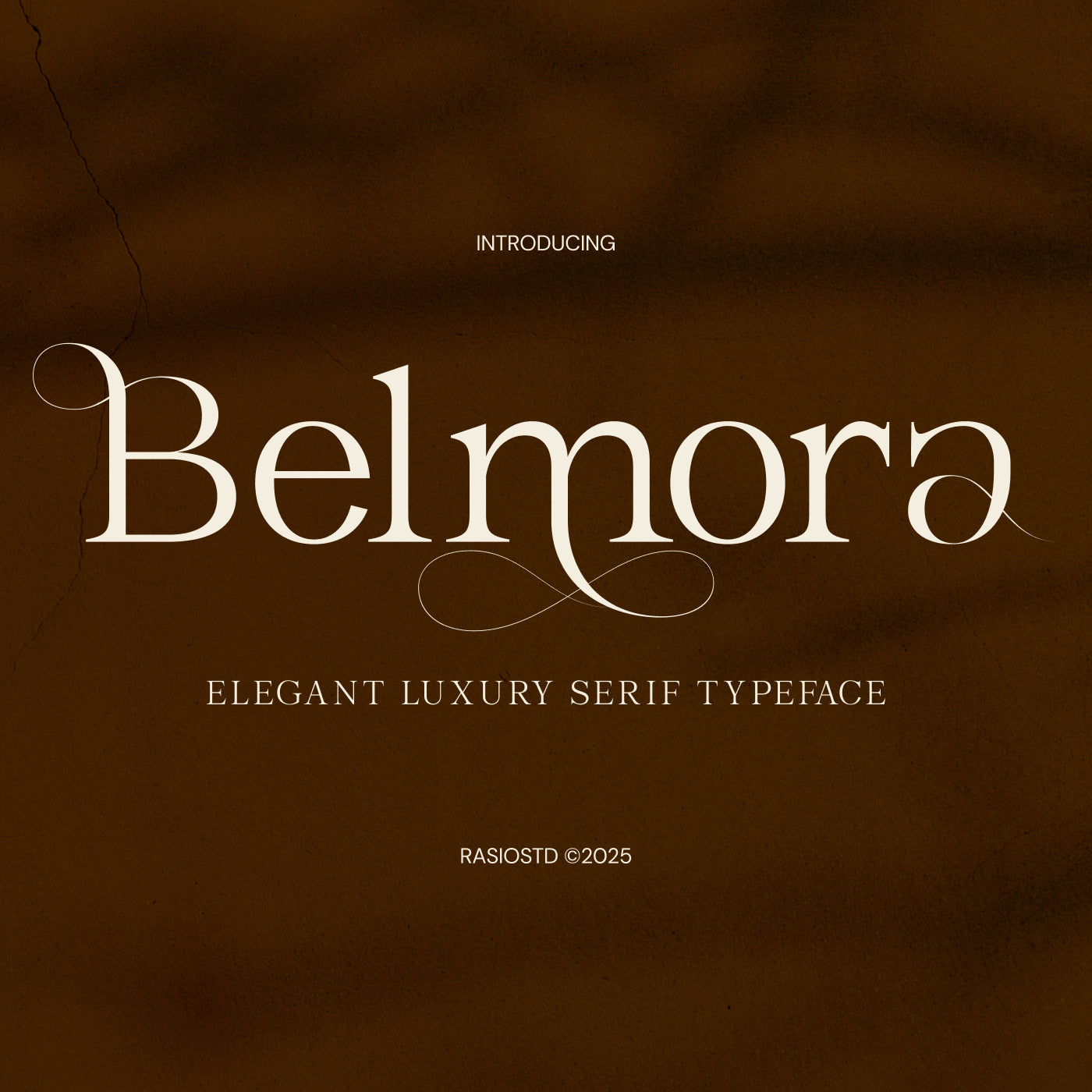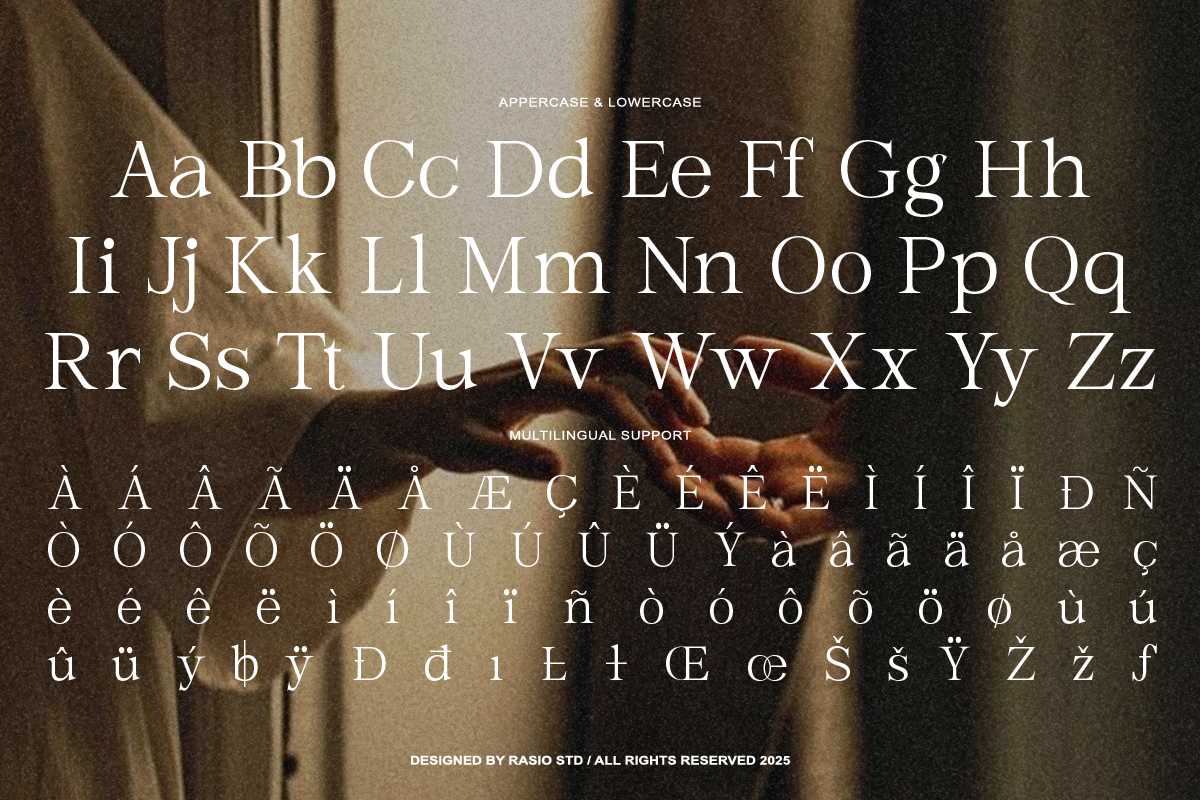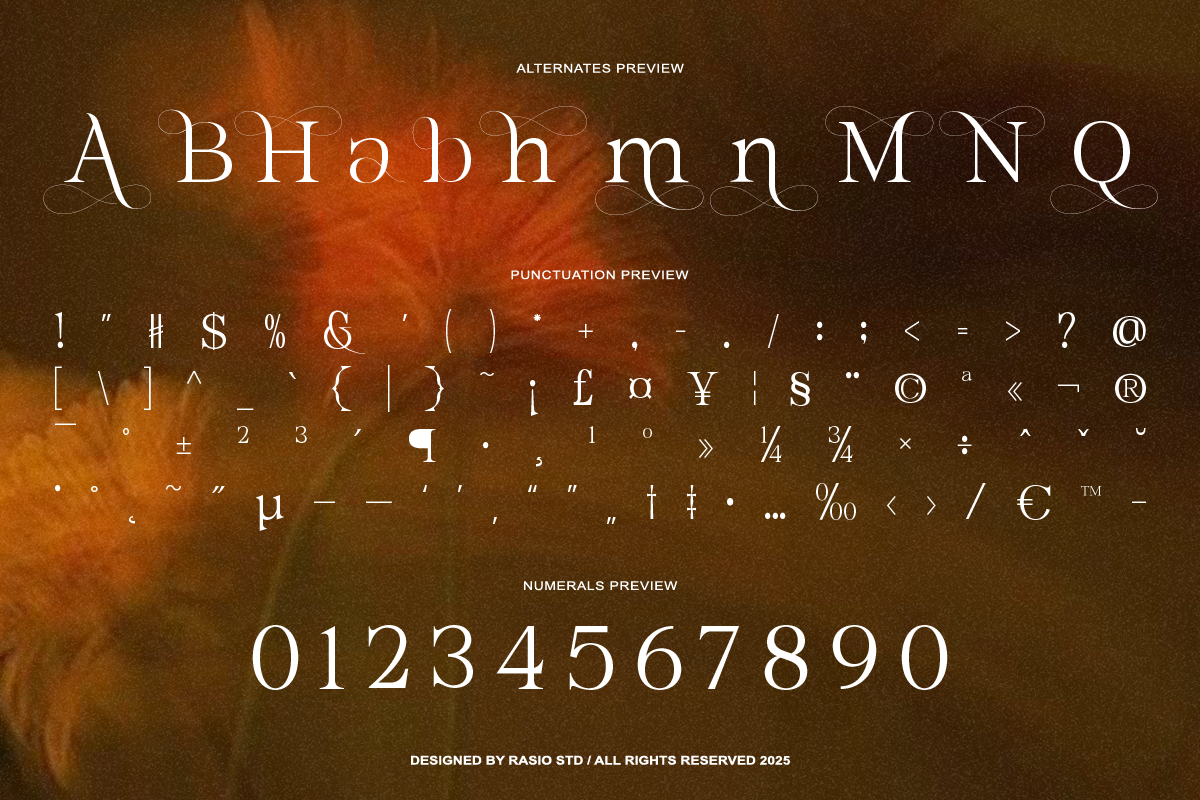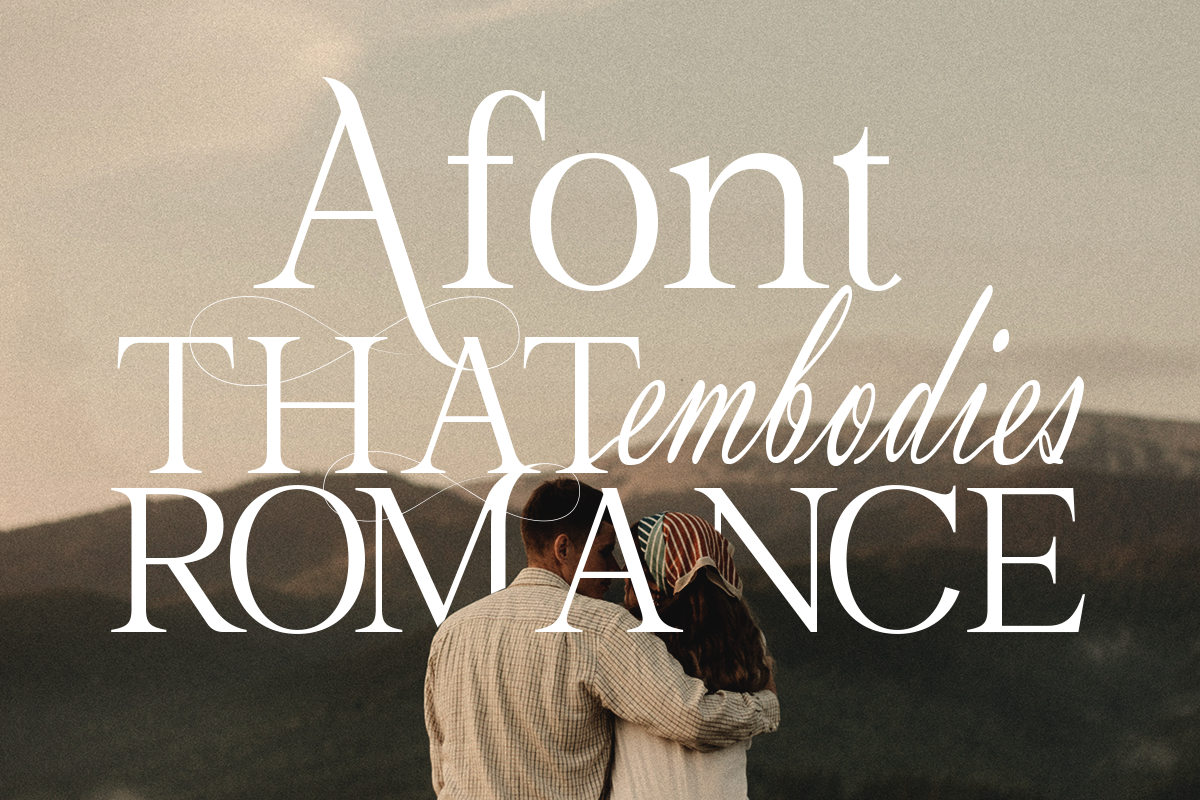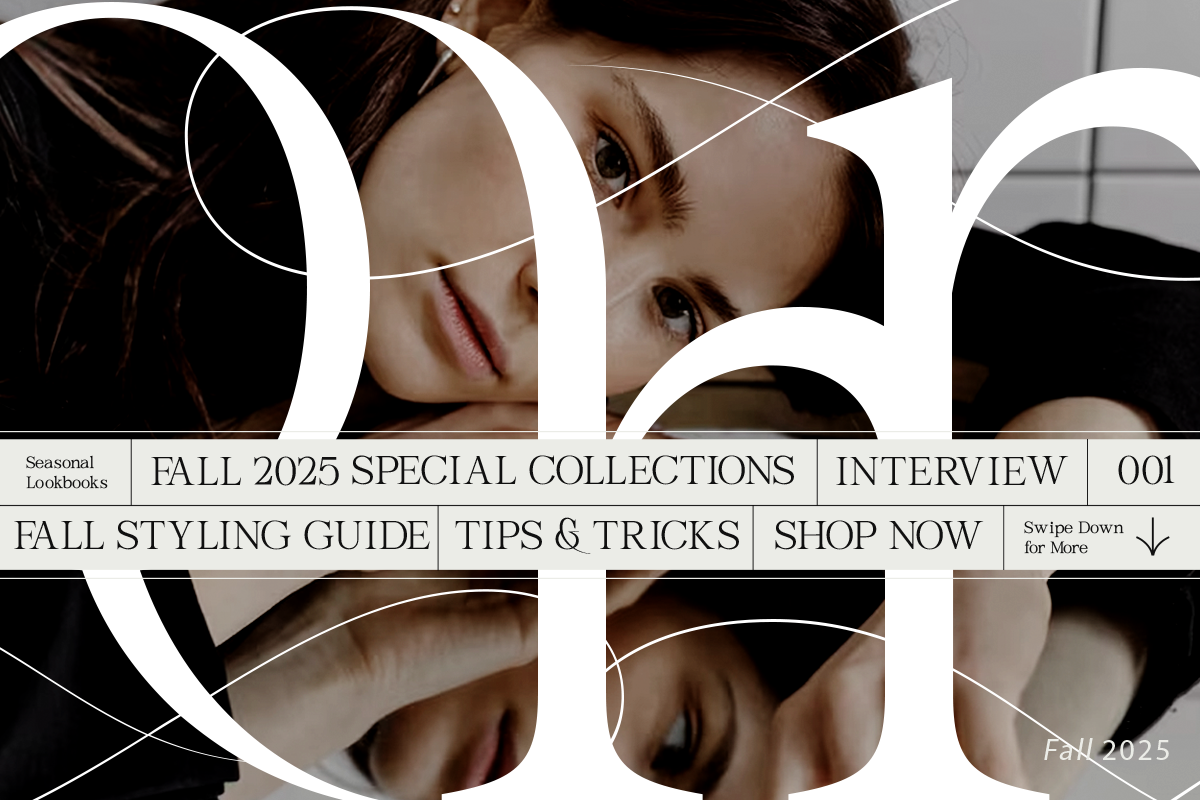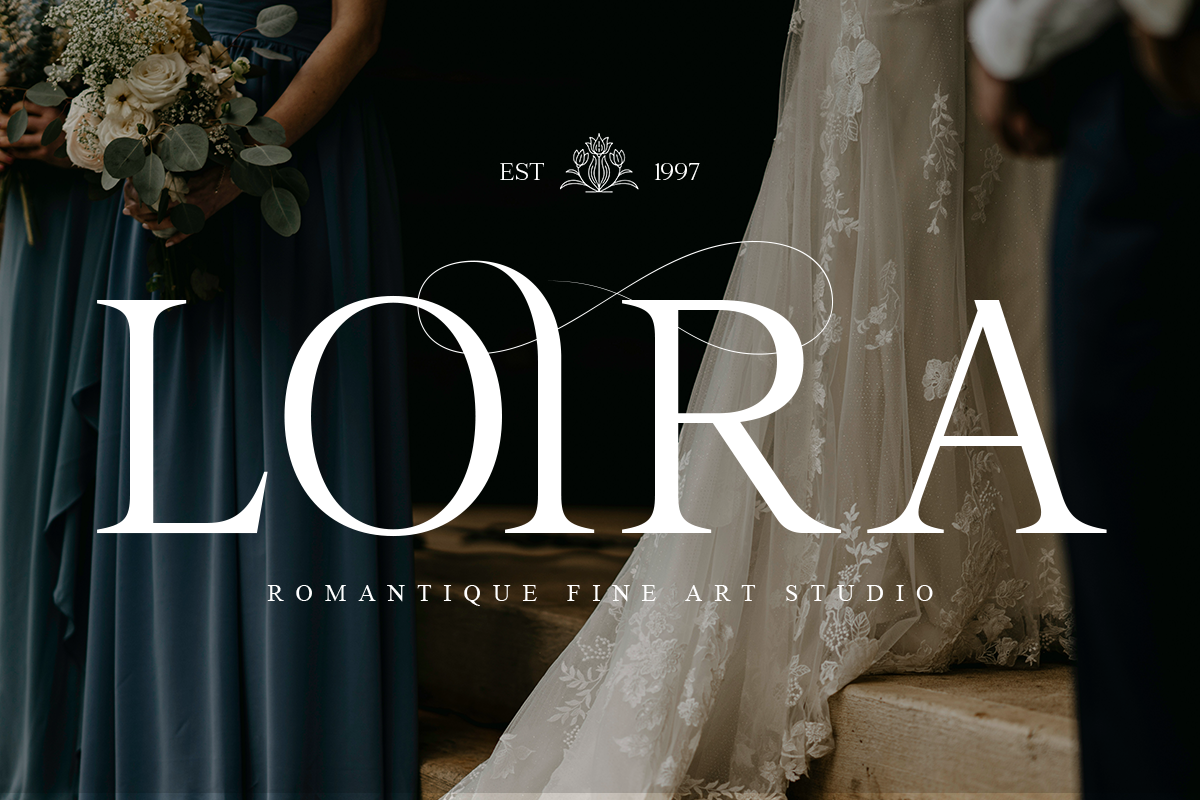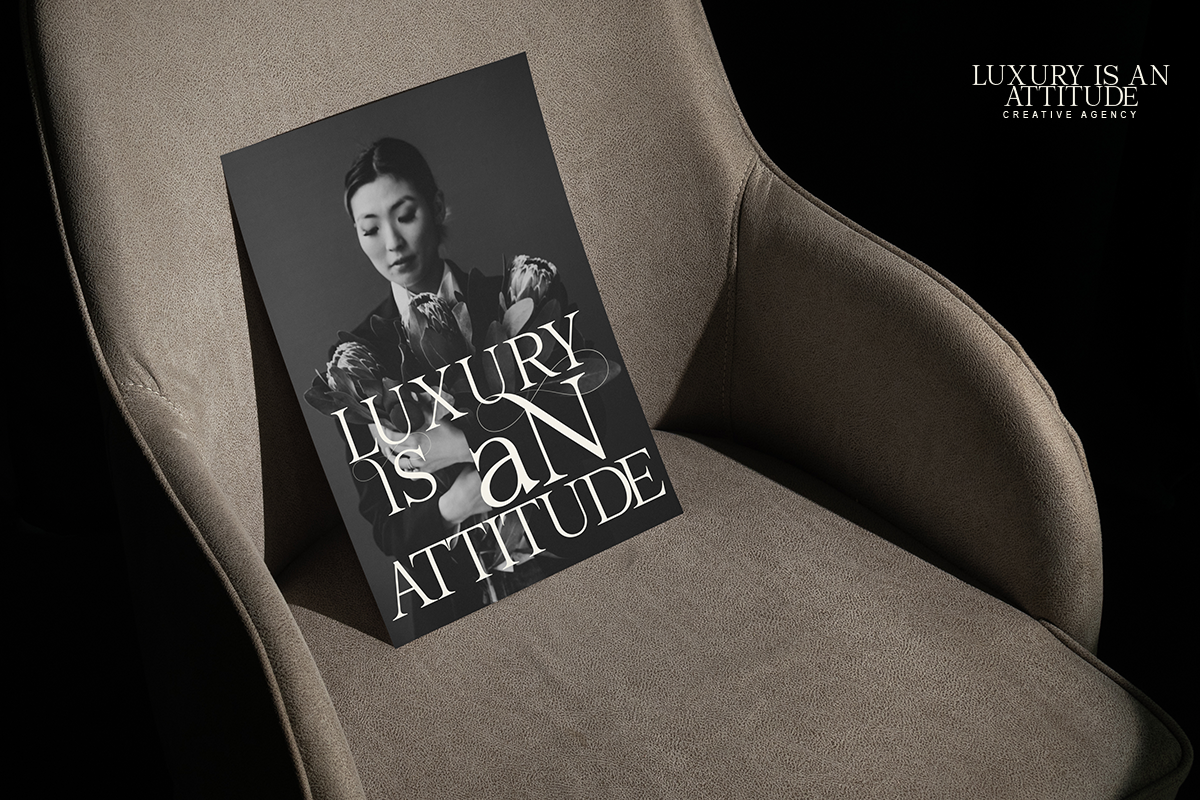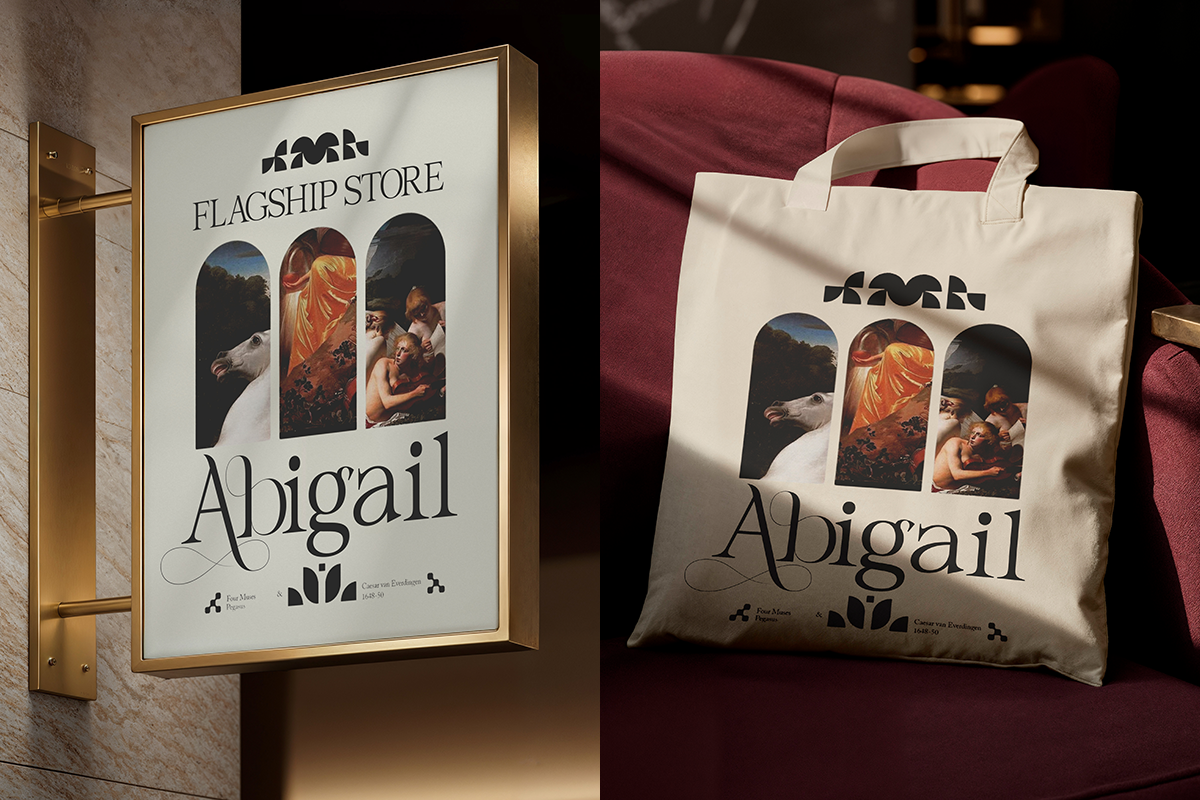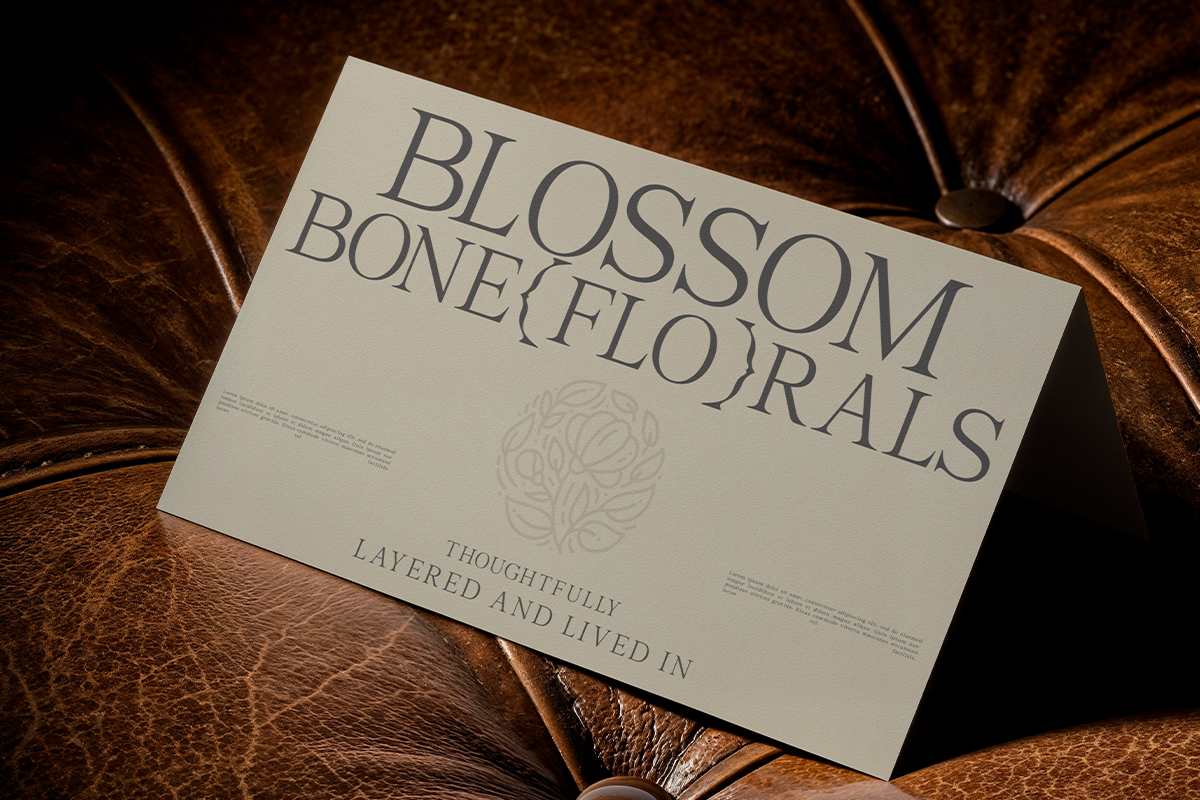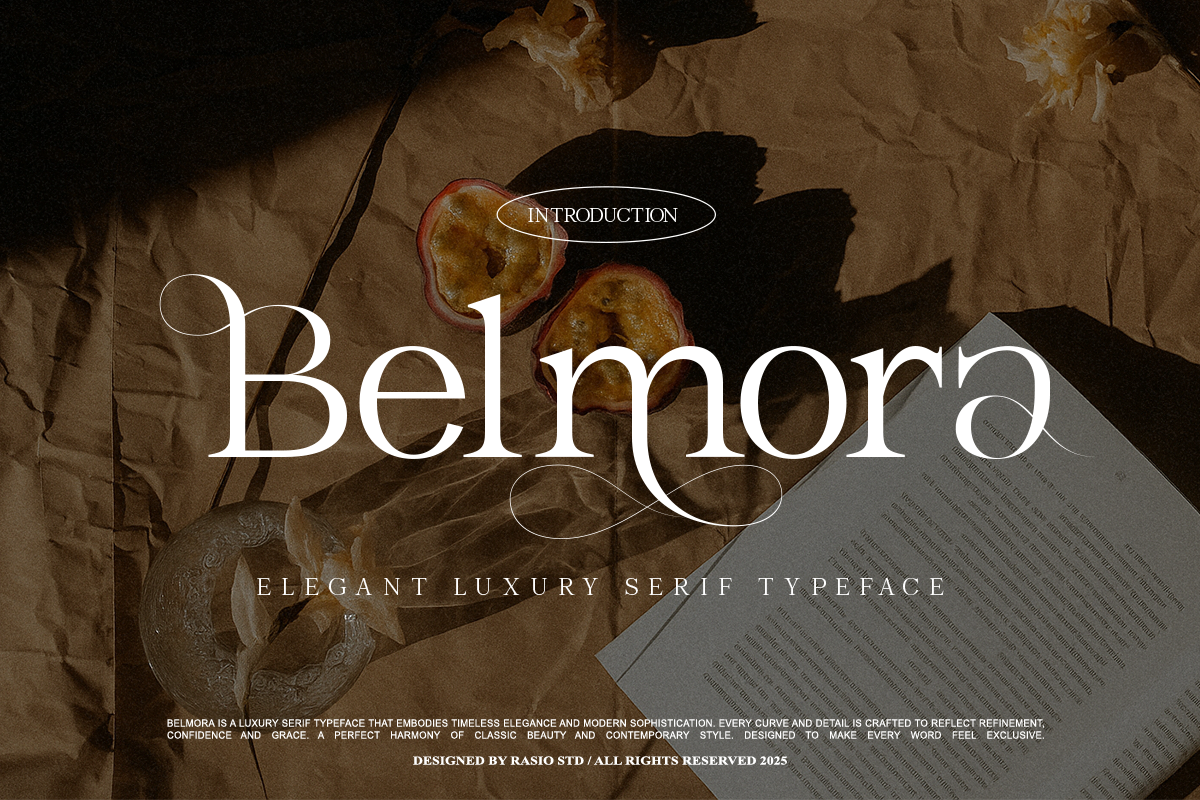
Belmora Elegant Luxury Serif Typeface Font
Belmora is an elegant luxury serif font that merges timeless charm with modern sophistication. Each letterform is crafted with graceful contrast, refined curves, and subtle details that radiate exclusivity. Its flowing alternates and stylish ligatures bring a bespoke aesthetic ideal for editorial design, high-end branding, and fine art packaging. With a perfect blend of classic beauty and contemporary sensibility, Belmora delivers an elevated typographic experience — designed to make every composition feel refined, confident, and luxurious.
Relevance and Use Cases is perfect for luxury branding, fashion magazines, wedding stationery, product packaging, logos, editorial headlines, and any design that needs an air of sophistication and exclusivity.
Numerals & Punctuation
Stylistic Alternates & Ligatures
Belmora is a serif typeface featuring uppercase and lowercase letters, numerals, punctuation, stylistic alternates, and ligatures, with multilingual support. It is available in OTF, TTF, and WOFF formats.